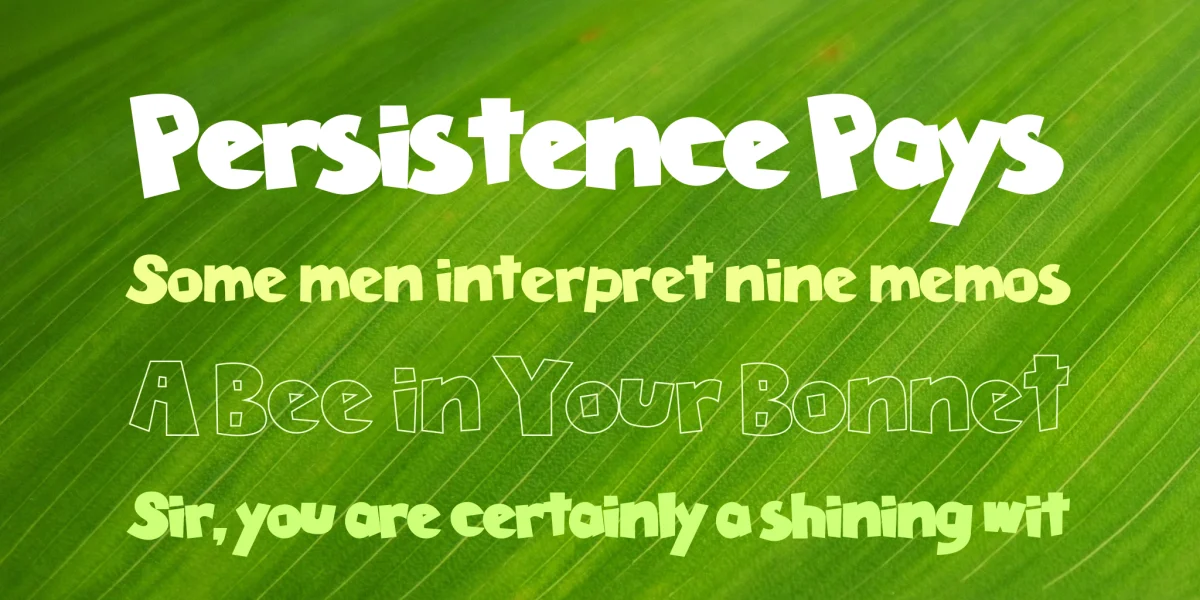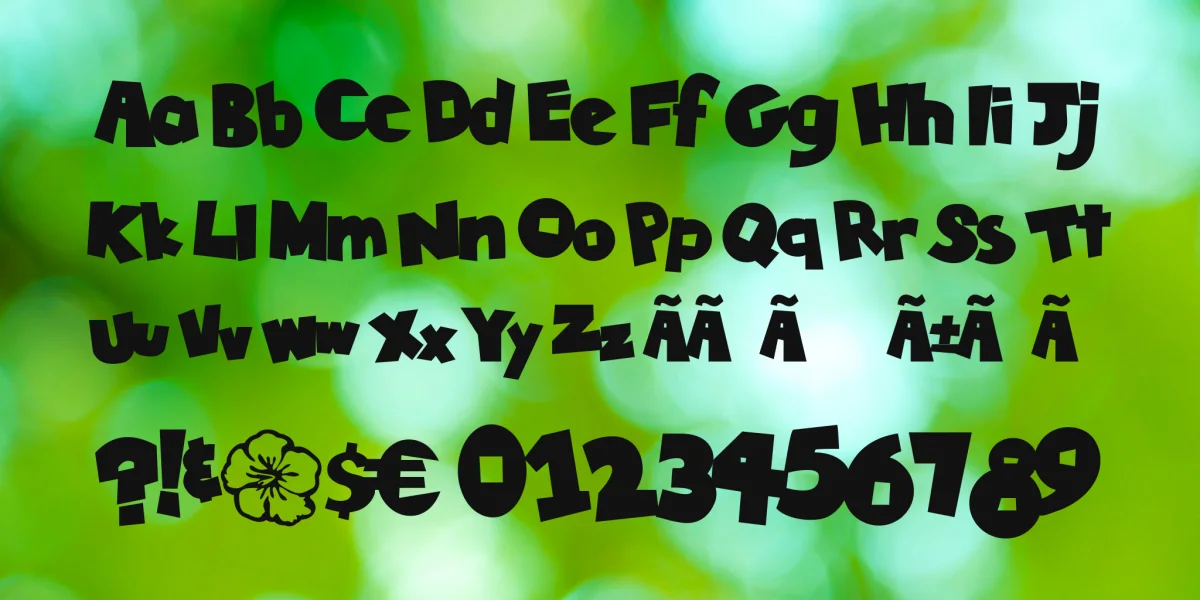
Aloha sun worshippers! Whether Hawaii is your idea of paradise, exotic Thailand, or beautiful Costa Rica we have a typeface that wants to take you there. This irregular display font is sure to make the others look pale by comparison. Think "fun in the sun", island drinks, and sandy beaches the next time you'd like to inject a splash of the tropics. Tiki Tropic is loaded with graphics like jumping dolphins, palm trees, and Tiki masks to quickly add some visuals to a text document. You can also quickly convert to vector outlines in Illustrator. Basic latin, numbers, punctuation, European accents, and kerning are all included.